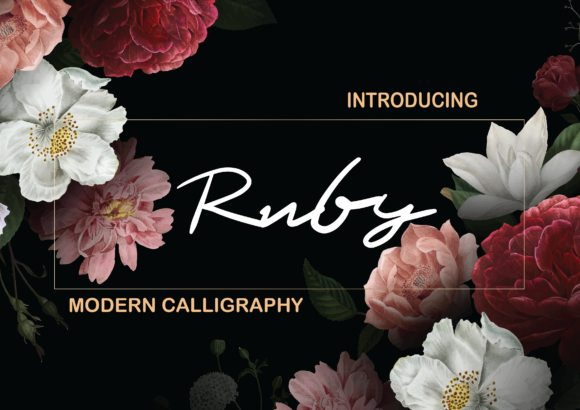
Welcome to the world of Ruby Font, where elegance and creativity intertwine to create a masterpiece. As you browse through this collection of handwritten fonts, you'll discover a treasure trove of beauty and inspiration.
Our Ruby Font is a script font family that exudes sophistication and charm. Meticulously crafted by Patrick Design, this font is a testament to the power of simplicity and artistry. Each letter is a work of art, flowing effortlessly from one to the next, creating a harmonious and visually captivating text.
If you long for a font that captures the essence of elegance, Ruby Font is your perfect choice. Its graceful curves and delicate flourishes add a touch of magic to any project, transforming ordinary words into works of art. Whether crafting wedding invitations, designing posters, or creating logos, Ruby Font will elevate your designs to new heights.
Unlock your creativity and let the Ruby Font inspire you. Imagine the possibilities as you explore the diverse range of applications for this captivating font. Use it to create stunning book covers that beckon readers to delve into the world within. Design enchanting greeting cards that express your heartfelt sentiments with elegance and grace. Bring life to your social media posts with eye-catching graphics that demand attention. The possibilities are endless.
With Ruby Font, you hold the key to unlocking a world of creativity. Its versatility extends far beyond the boundaries of traditional design, inviting you to explore new horizons of artistic expression. Embrace the power of Ruby Font and let it transform your projects into works of art.
Step into the realm of Ruby Font today and experience the joy of creating with a font that speaks to your soul. Let your imagination soar as you discover the endless possibilities that await you.